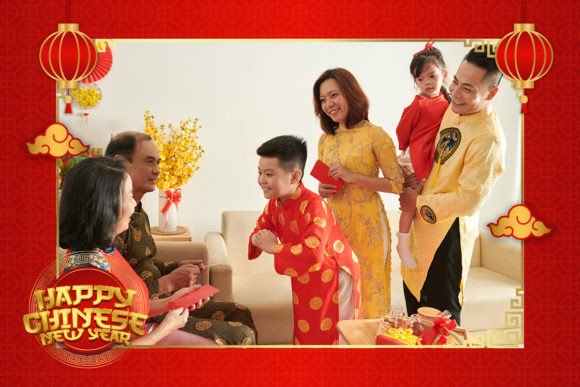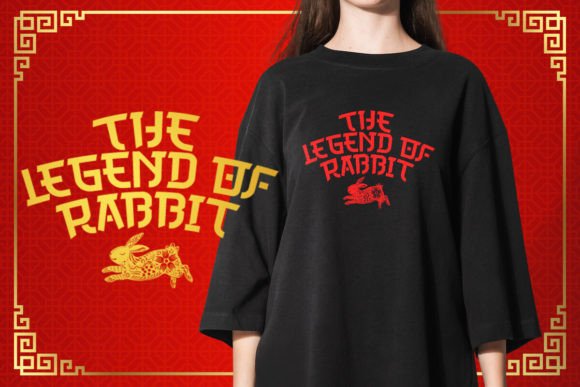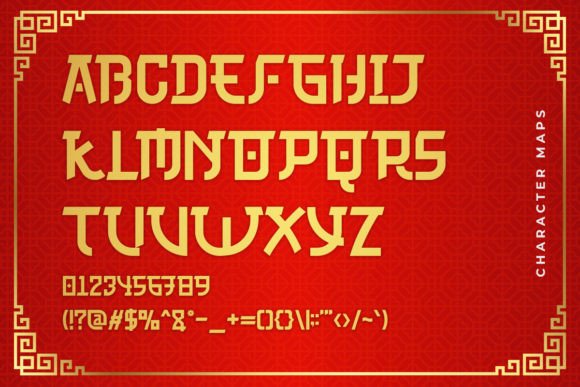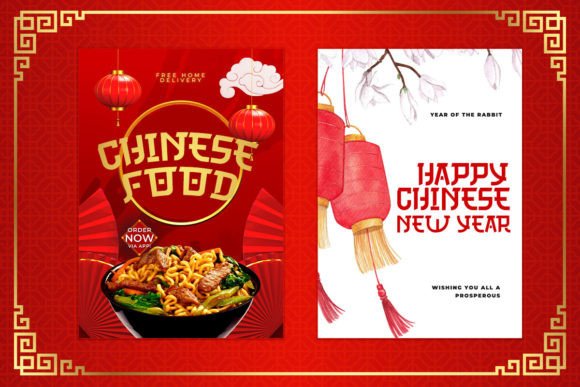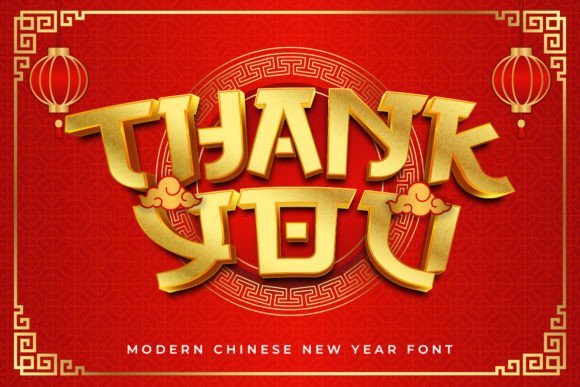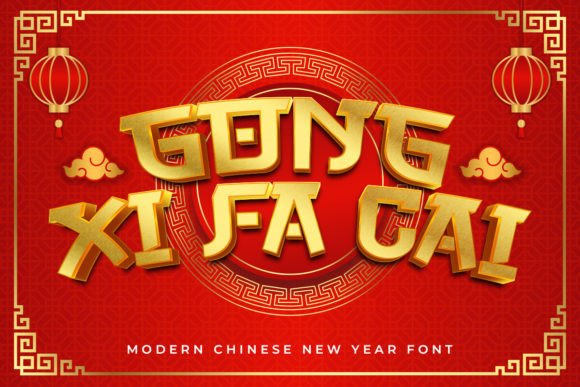
Gong Xi Fa Cai Font: Celebrate Lunar New Year with Traditional Chinese Elegance
As the Lunar New Year approaches, designers and crafters around the world seek to infuse their projects with the festive spirit and cultural richness of traditional Chinese celebrations. For those looking to add an authentic touch to their designs, the Gong Xi Fa Cai font is an exquisite choice. This beautifully crafted display font embodies the elegance and spirit of traditional Chinese calligraphy, making it perfect for celebrating the Lunar New Year, cultural festivals, and any project that requires a touch of Chinese heritage and festivity.
The Essence of Traditional Chinese Calligraphy
Gong Xi Fa Cai is more than just a font – it’s a representation of the timeless beauty and sophistication of traditional Chinese calligraphy. With its bold strokes and intricate design, this font adds an authentic and festive flair to your designs. Its elegant appearance makes it an ideal choice for various applications, including posters, banners, invitations, greeting cards, and more. Whether you’re designing for a special celebration or creating artwork that honors Chinese culture, Gong Xi Fa Cai brings a timeless and celebratory atmosphere to your work.
Key Features of Gong Xi Fa Cai Font
- PUA Encoding: Gong Xi Fa Cai is PUA encoded, which means you can access all of the cute glyphs and swashes with ease. This feature allows for effortless navigation and selection of the desired characters, making the design process smoother and more efficient.
- Traditional Chinese Calligraphy: The font’s design is deeply rooted in traditional Chinese calligraphy, offering a genuine and respectful representation of Chinese cultural heritage.
- Festive and Elegant: Gong Xi Fa Cai strikes the perfect balance between festivity and elegance, making it suitable for a wide range of projects, from celebratory posters to elegant invitations.
- Versatile: This font is versatile and can be used in various design contexts, including but not limited to, Lunar New Year celebrations, cultural festivals, and any project that requires a touch of Chinese heritage.
Design Applications for Gong Xi Fa Cai
Gong Xi Fa Cai’s versatility makes it an excellent choice for a variety of design applications. Here are some ideas to get you started:
- Posters and Banners: Create eye-catching posters and banners for Lunar New Year celebrations, cultural festivals, or special events with a distinctly Chinese flair.
- Invitations and Greeting Cards: Add a touch of elegance and festivity to your invitations and greeting cards, making them perfect for special occasions.
- Social Media Graphics: Elevate your social media presence with festive and culturally rich graphics that celebrate Chinese heritage.
- Branding and Packaging: Incorporate Gong Xi Fa Cai into your branding and packaging designs to convey a sense of cultural appreciation and festivity.
To make the most of Gong Xi Fa Cai, consider the following tips:
- Experiment with Colors: Pair the font with vibrant colors commonly associated with Chinese culture, such as red, gold, and pink, to amplify the festive atmosphere.
- Mix and Match: Combine Gong Xi Fa Cai with other design elements, such as traditional Chinese patterns and motifs, to create a rich and layered design.
- Pay Attention to Typography: Balance the bold and intricate design of Gong Xi Fa Cai with simpler typography to maintain visual harmony.
Gong Xi Fa Cai is a stunning display font that offers designers and crafters a unique opportunity to infuse their projects with the elegance and spirit of traditional Chinese calligraphy. Its PUA encoding, festive yet elegant design, and versatility make it an ideal choice for celebrating the Lunar New Year, cultural festivals, and any project that seeks to honor Chinese heritage. Whether you’re a seasoned designer or a crafting enthusiast, Gong Xi Fa Cai is sure to bring a touch of timeless and celebratory atmosphere to your work.